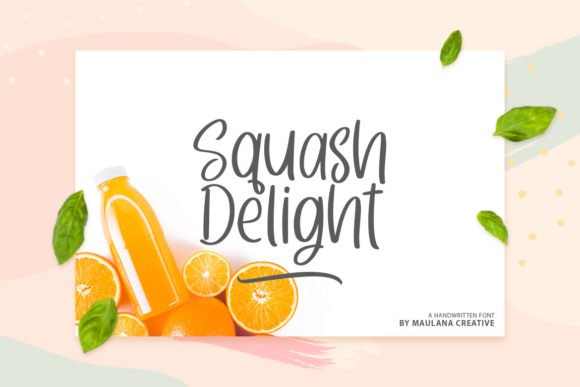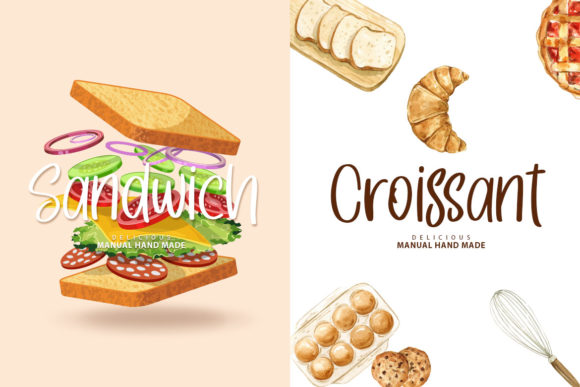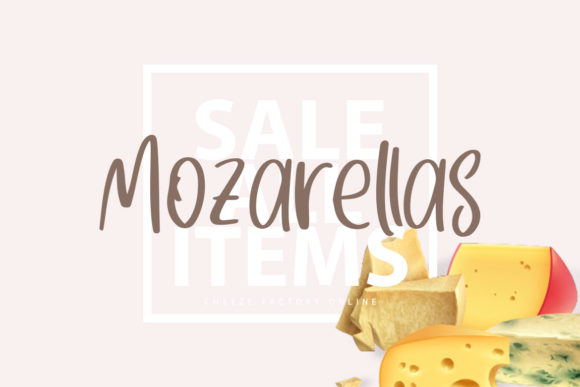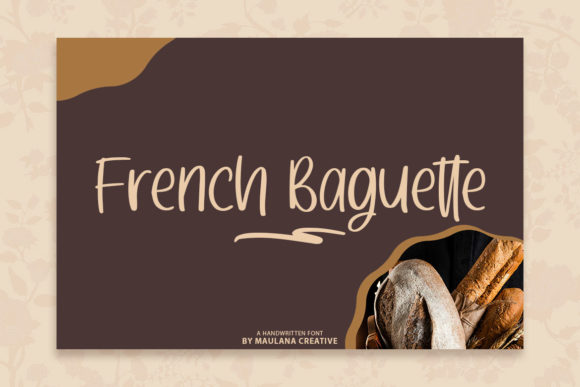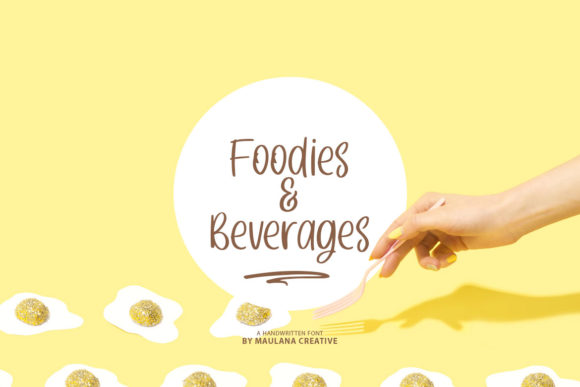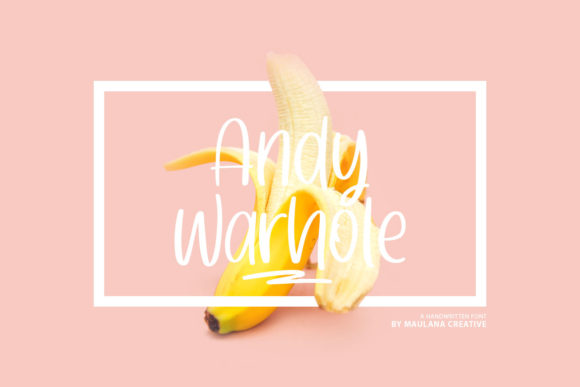
Nickollas Font – Free Download
Introduction to Nickollas Font
Nickollas is a sweet, soft hand-lettered handwritten font.
The playful rounded characters make it the perfect font for creating stunning nursery art Nickollas comes packed with heart-themed swashes, that will allow you to add a decorative touch within seconds.